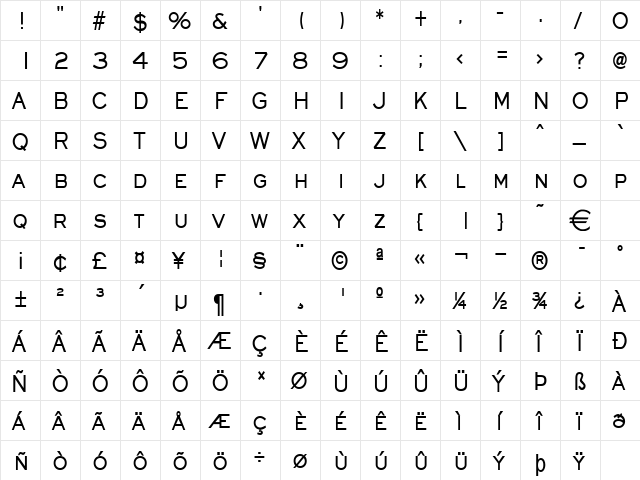
EyeglassCondensed Bold
Design Context for EyeglassCondensed Typeface
EyeglassCondensed offers clean, dependable letterforms without strong stylistic allegiance, making it a practical choice for designers who need flexibility. Its bold stroke weight gives it real presence on the page. Its narrow stance lets it pack a punch even in space-constrained designs.